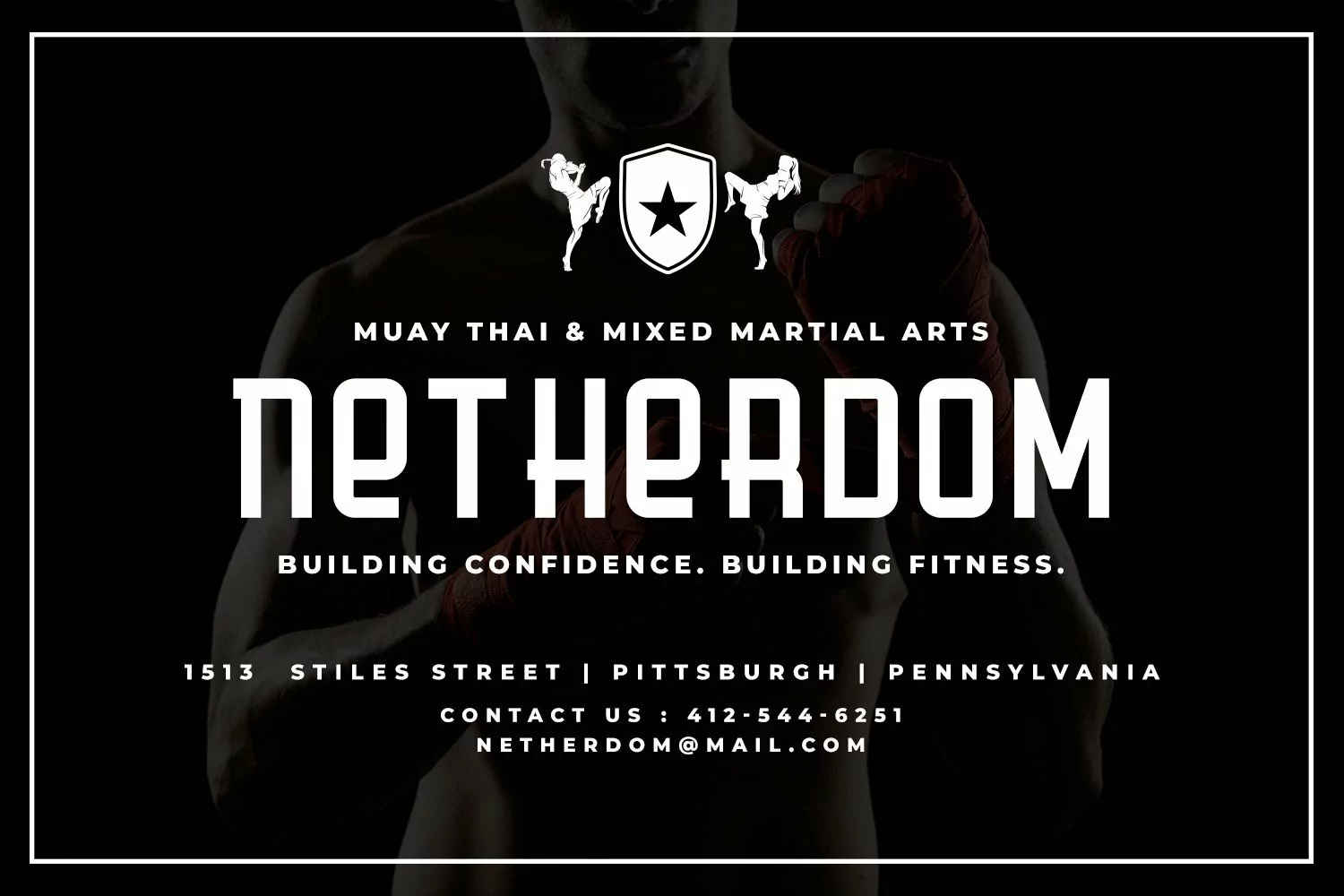
Web Font Dominous
Dominous is a display typeface. Perfect for display, quotes, posters, logo, logotype, header, tittle, business card, merchandise, branding, packaging, and many more.